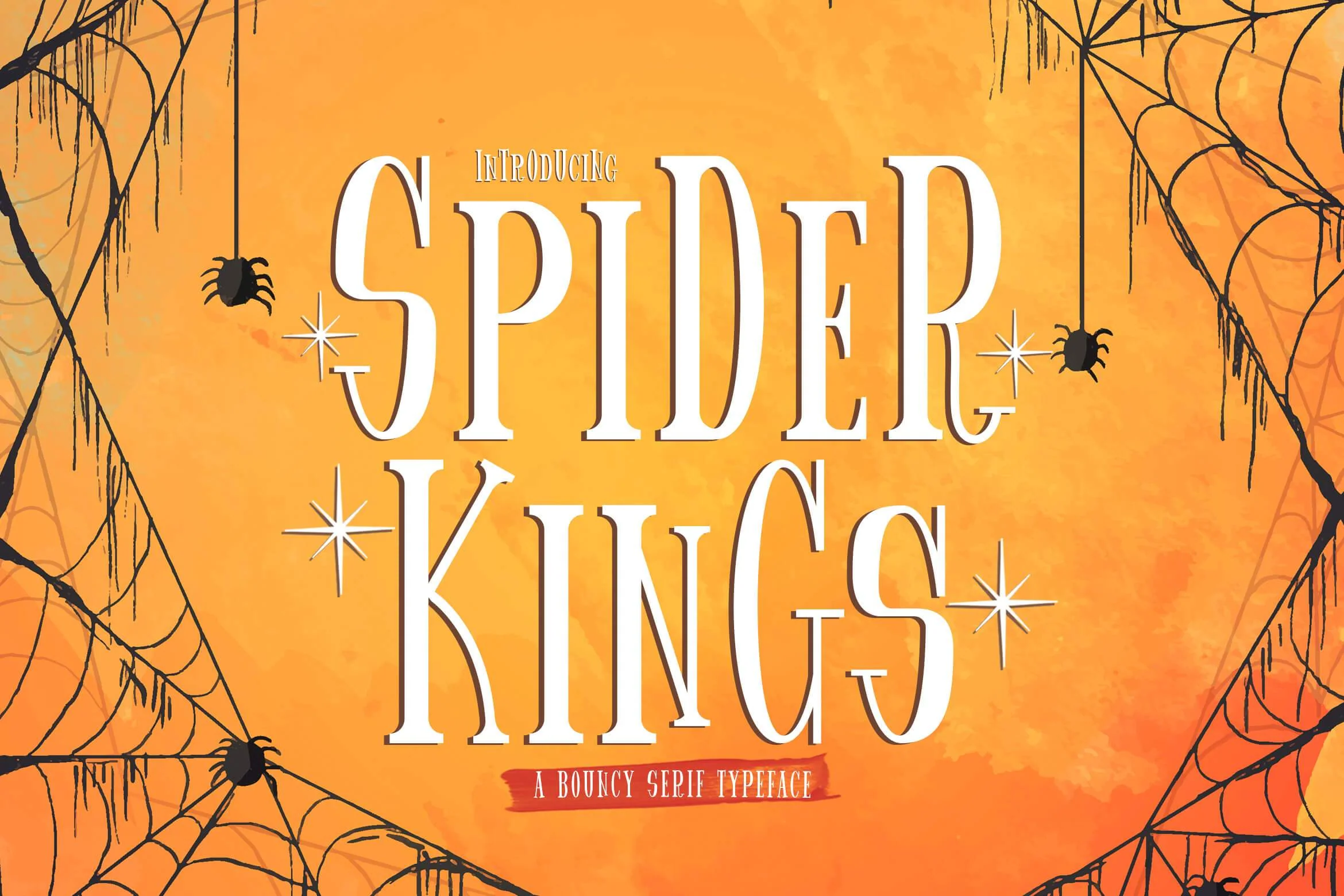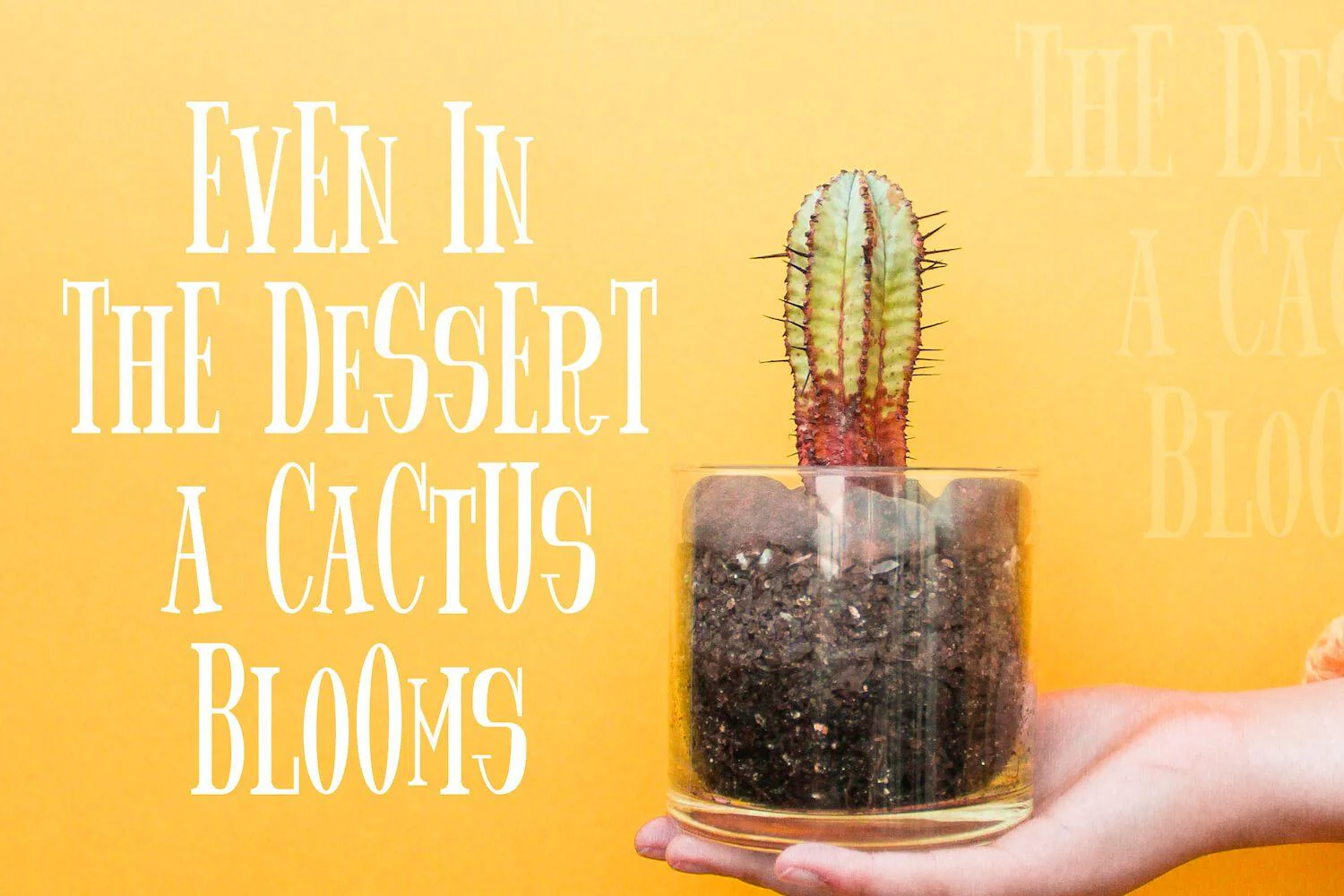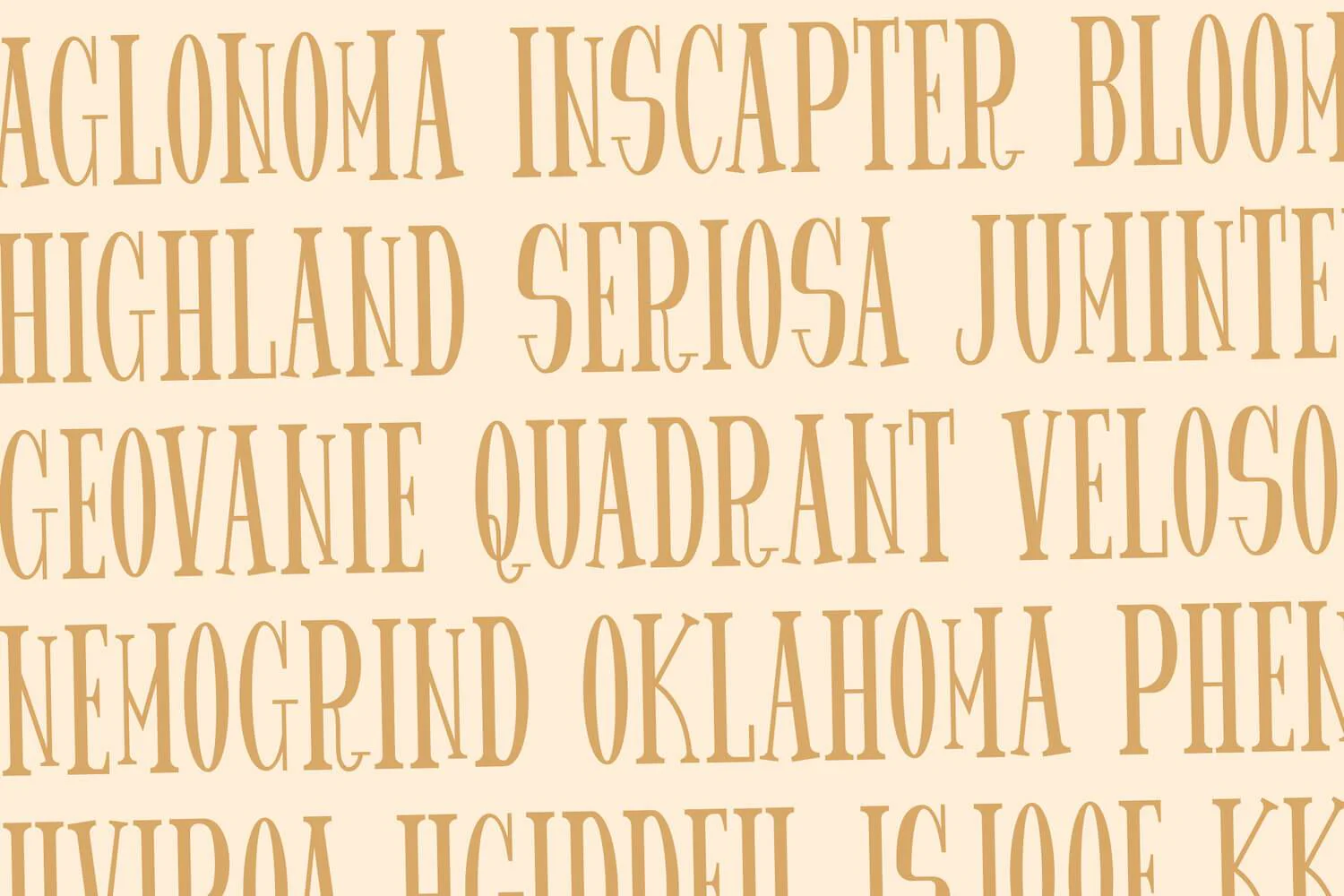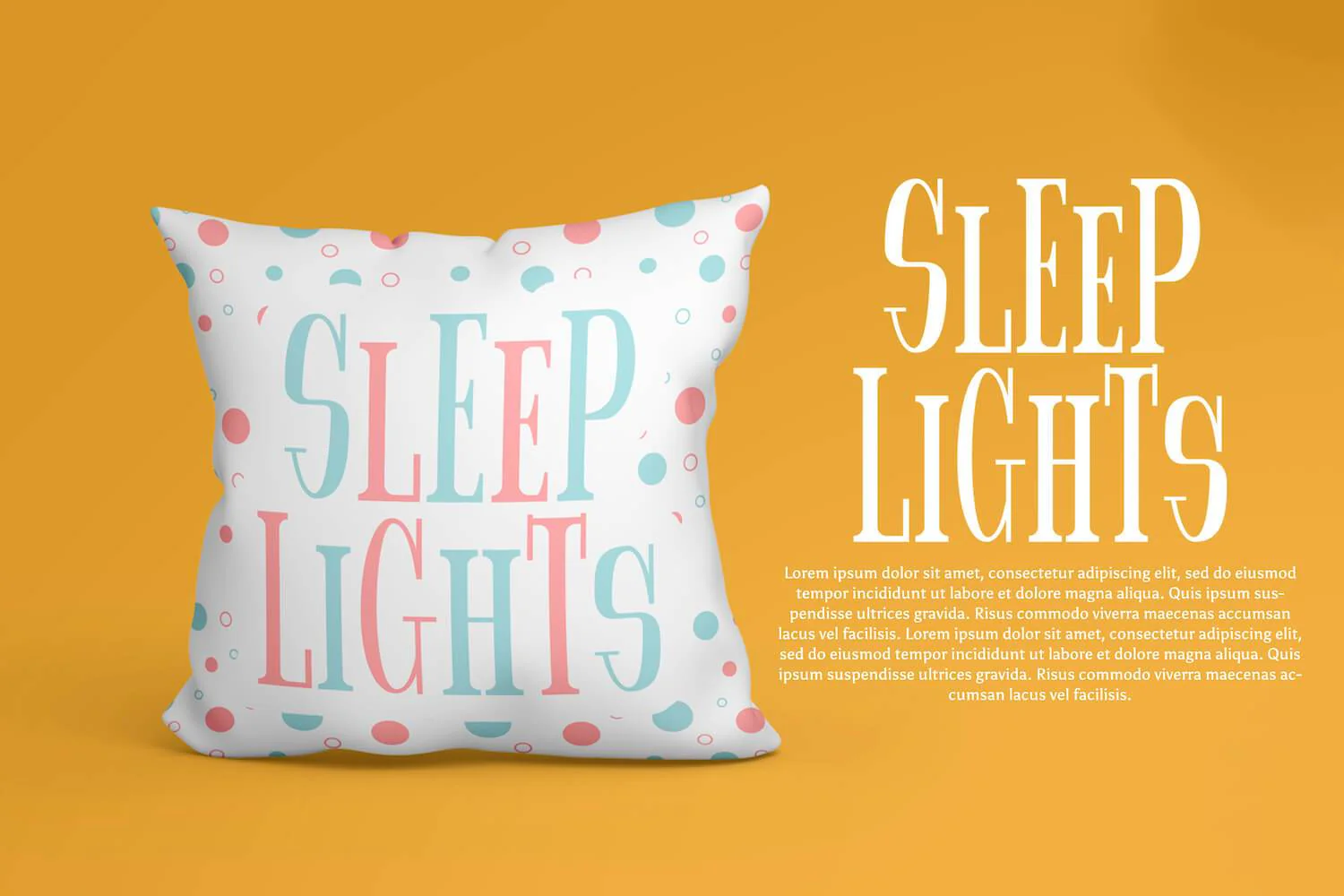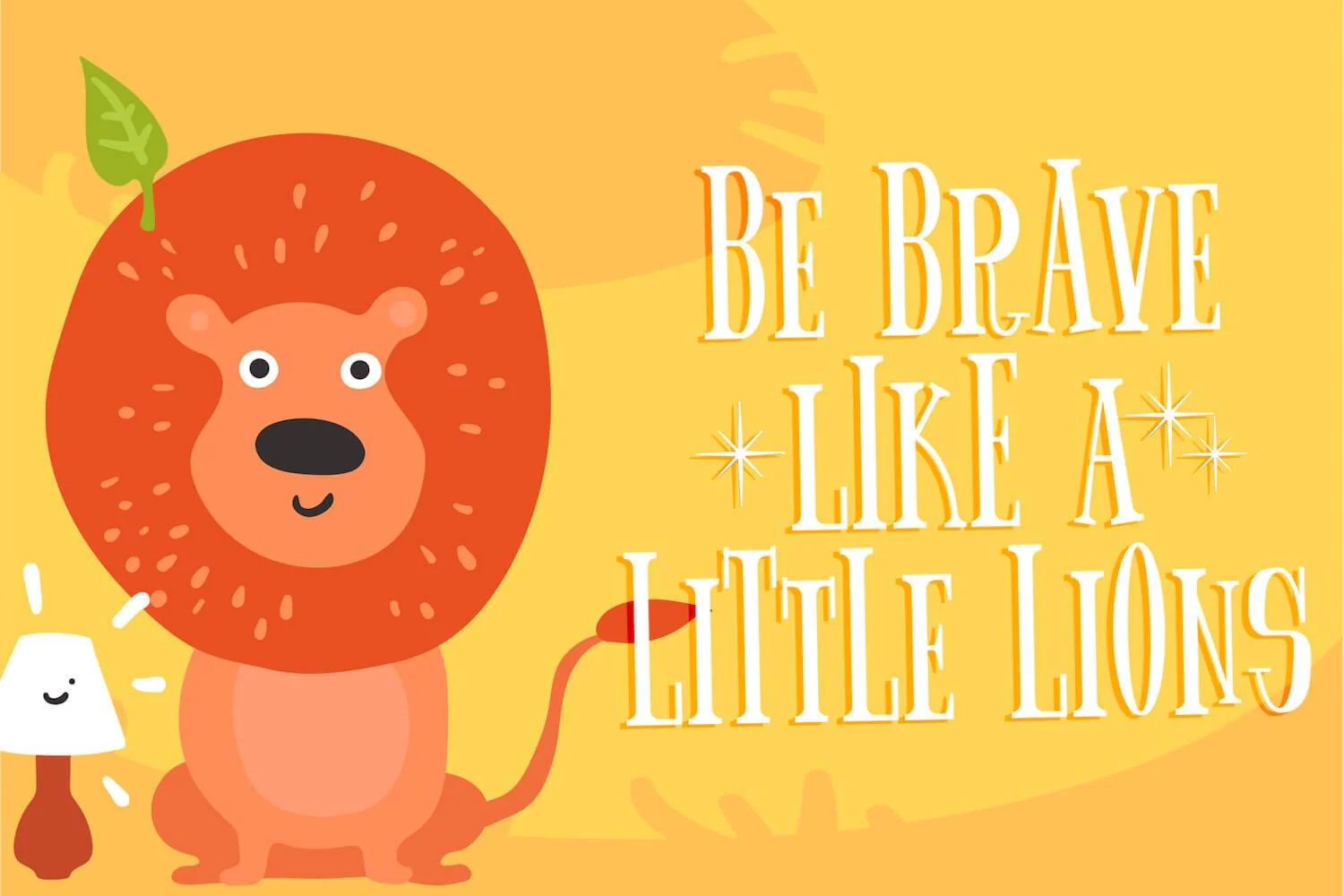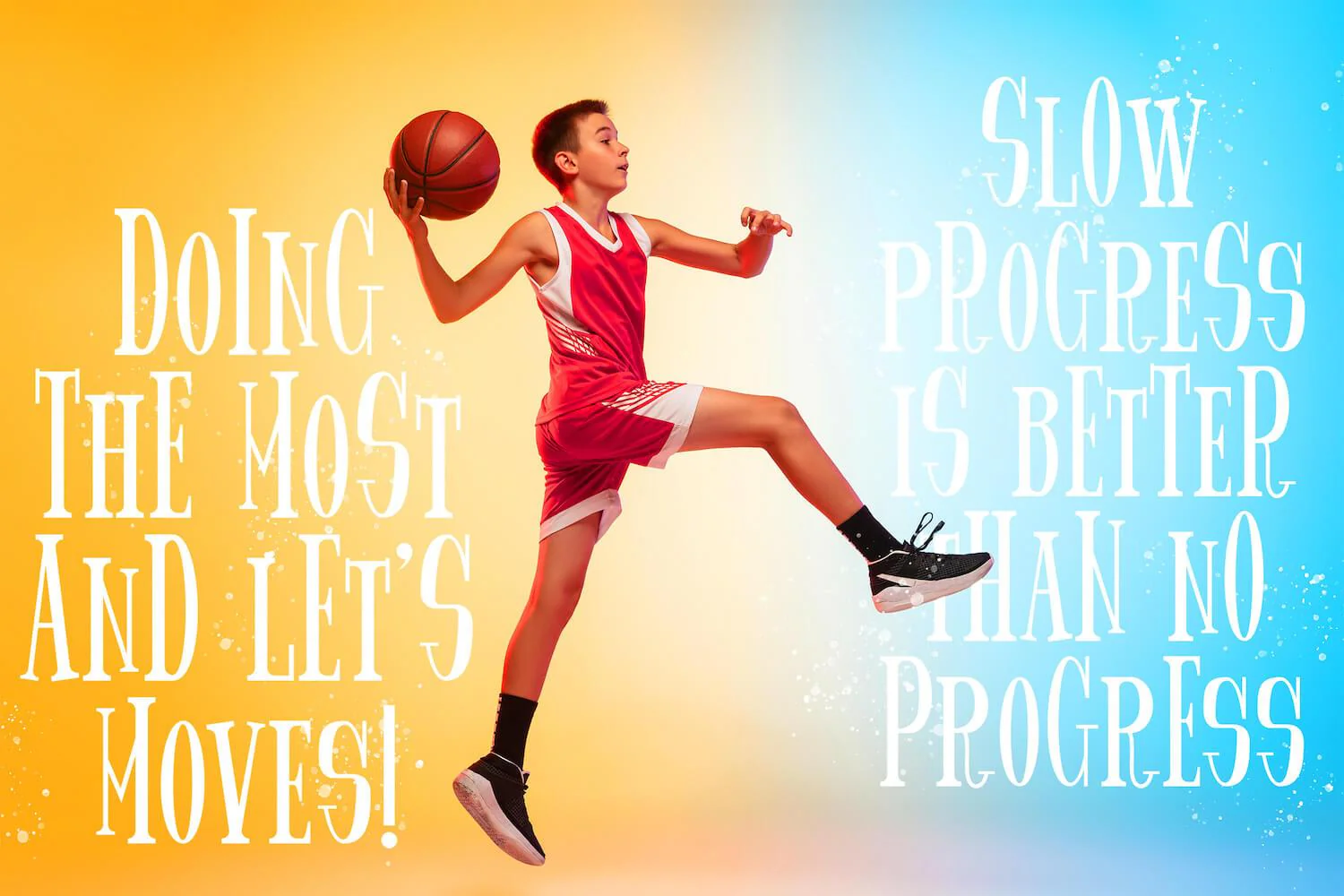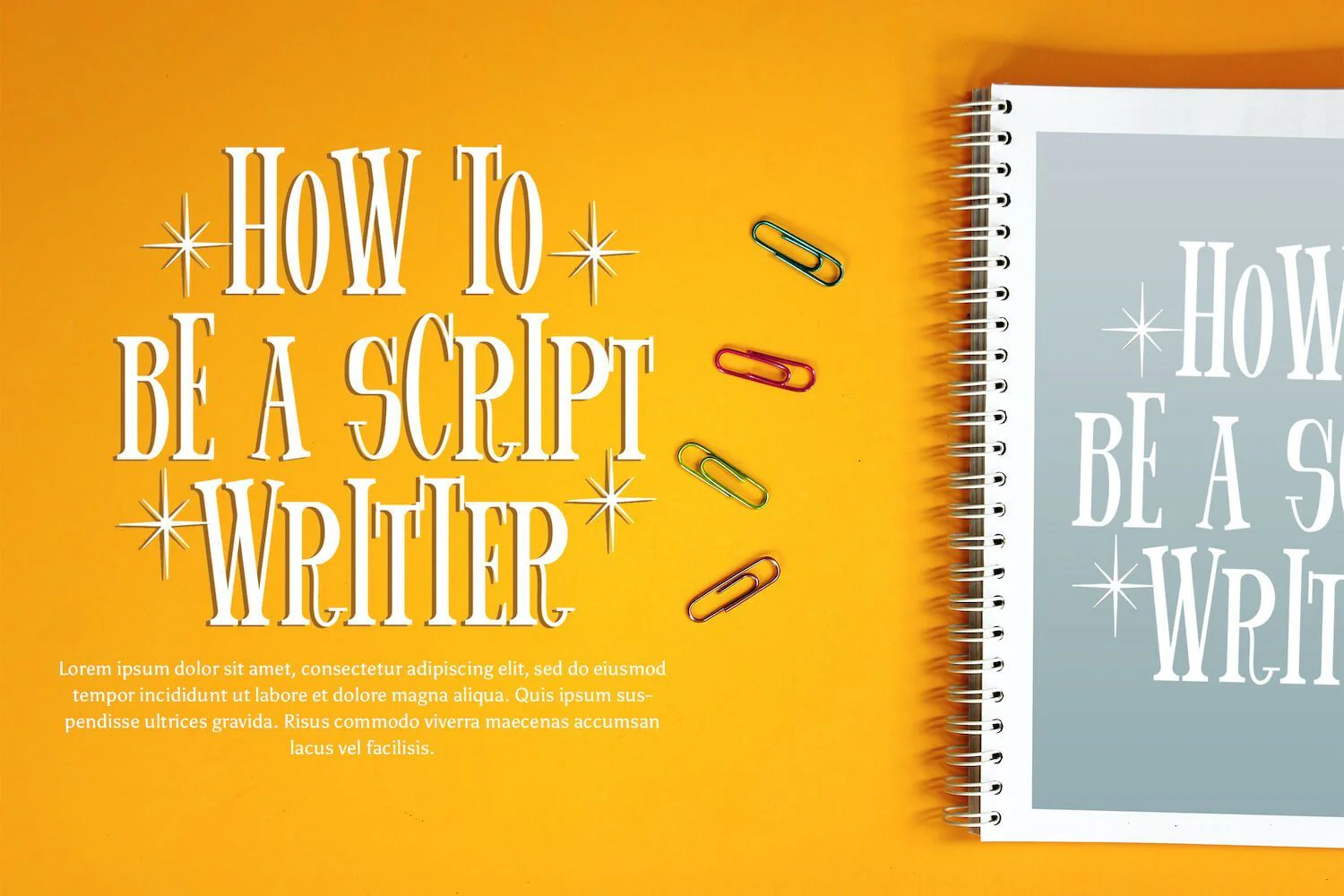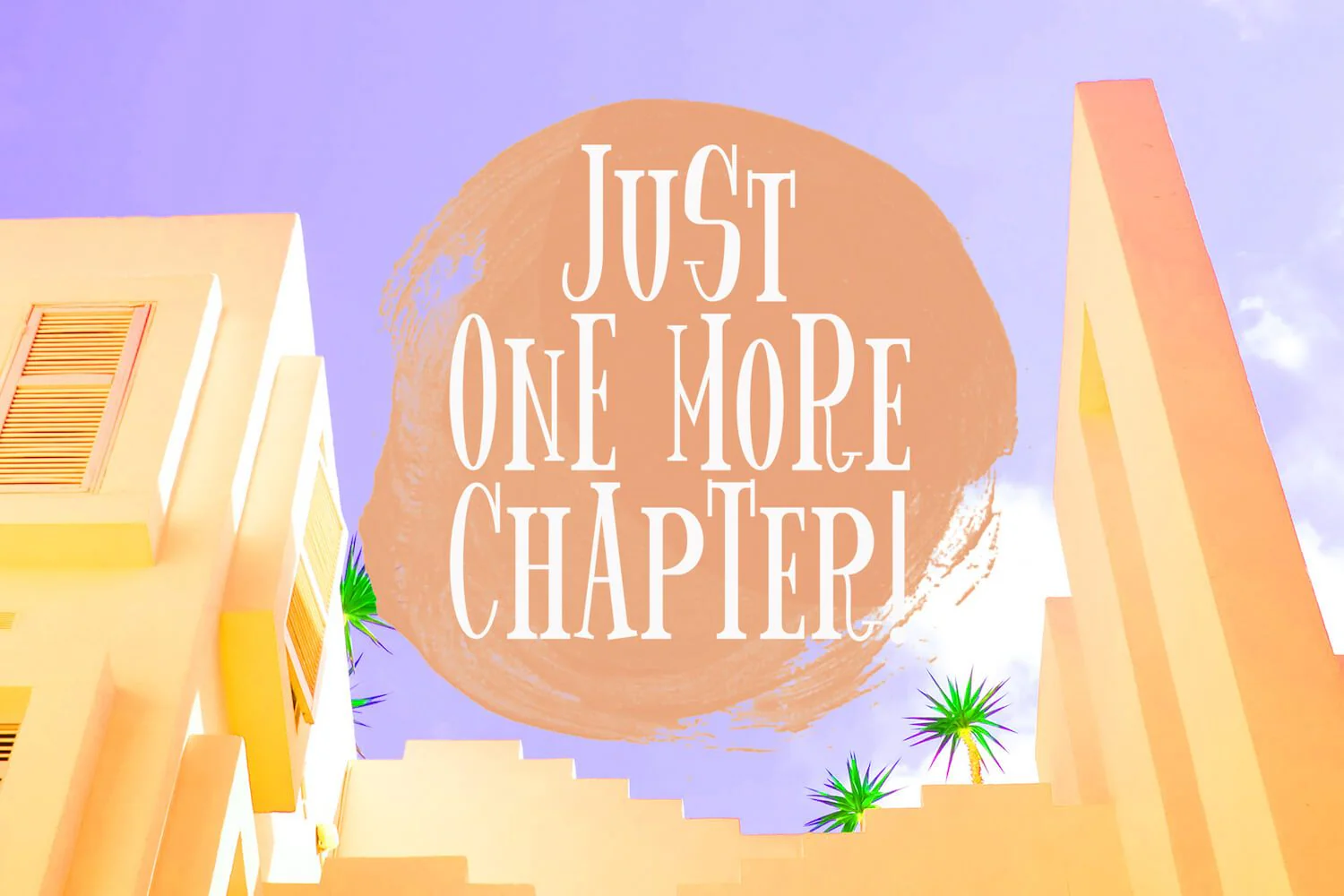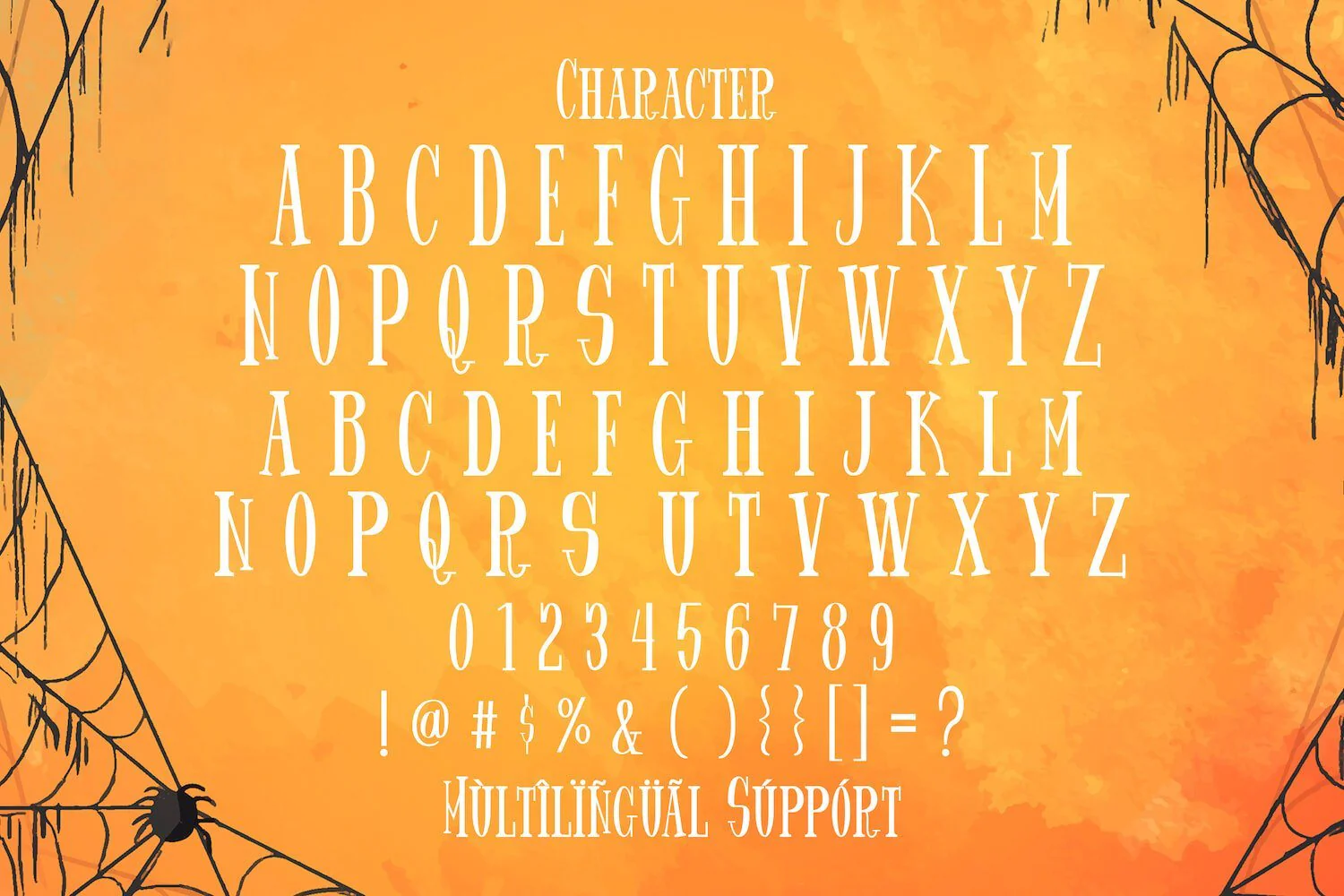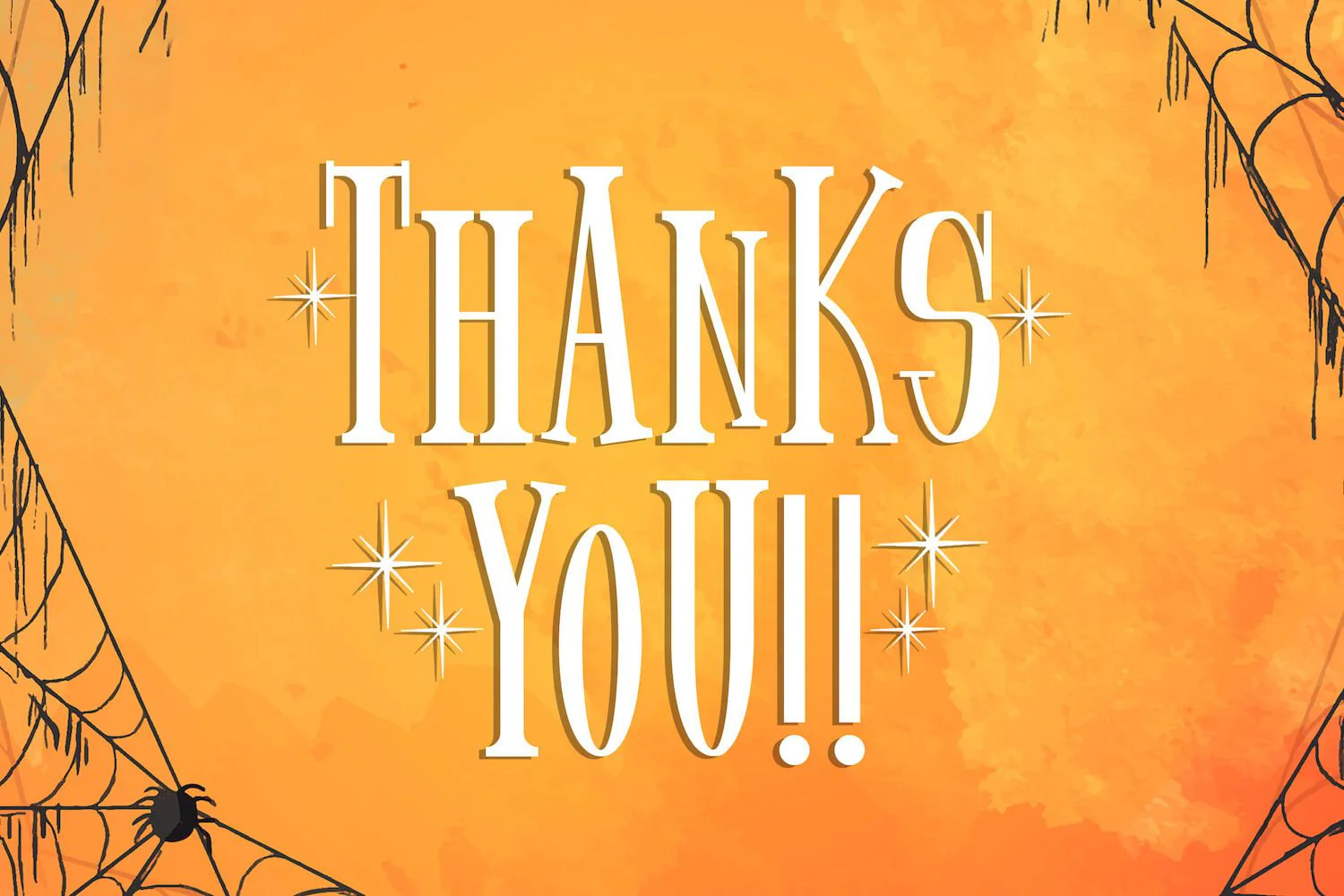
Spider King - Beautiful Serif Font
Introducing Spider King - Beautiful Serif Font
Spider King is a bouncy and playful display serif font. It can easily be matched to an incredibly large set of projects, so add it to your creative ideas and notice how it makes them stand out!
Introducing Spider King - Beautiful Serif Font
Spider King is a bouncy and playful display serif font. It can easily be matched to an incredibly large set of projects, so add it to your creative ideas and notice how it makes them stand out!